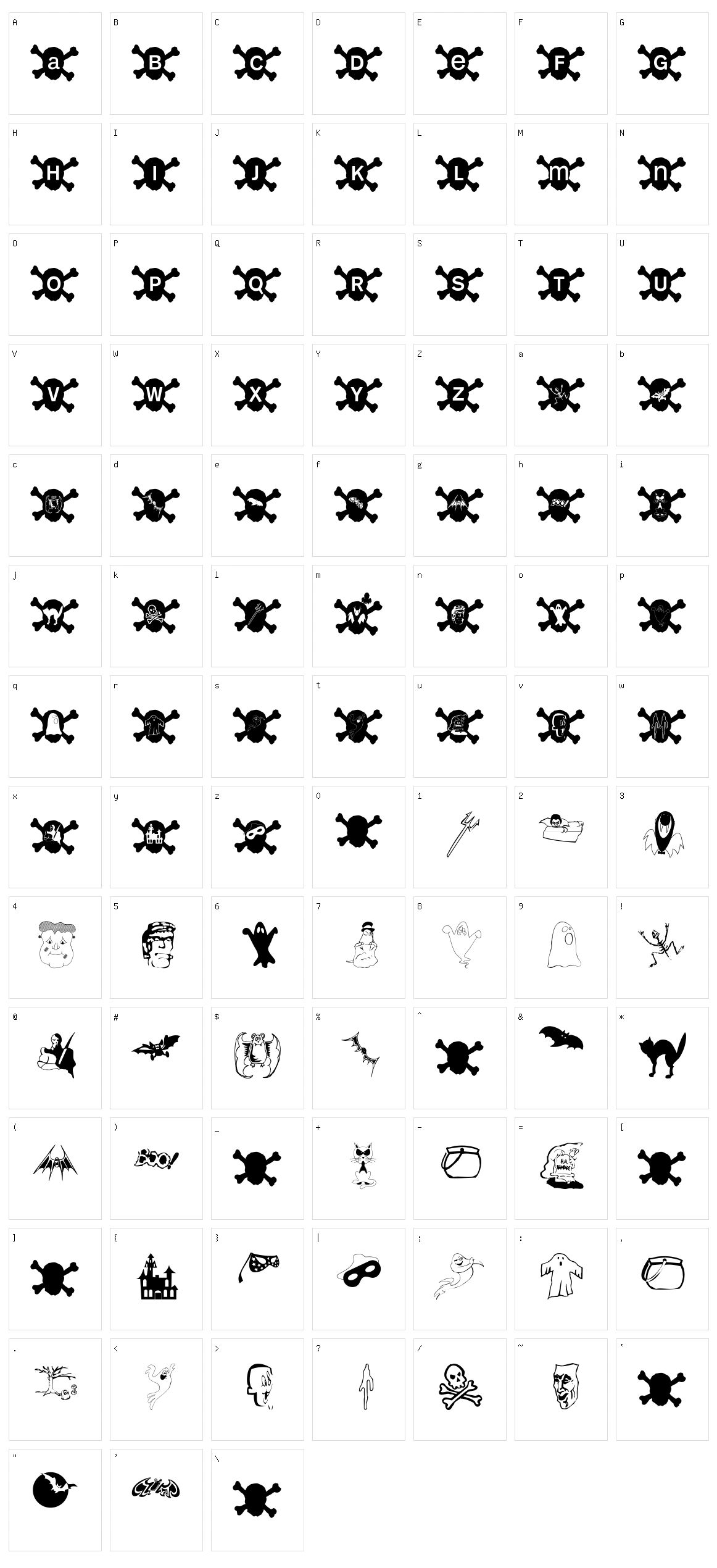
The free font HalloWien is carefully designed by Manfred Klein, showcasing a thoughtful balance of creativity and usability and falls under the Halloween font style. When you download the ZIP file, it contains only 116.29 KB of font files, making it lightweight and quick to download. Please review the license details below to understand permitted usage and distribution rights. If license information is not available, we recommend using this font for personal projects only or contacting the author directly for commercial usage permissions.